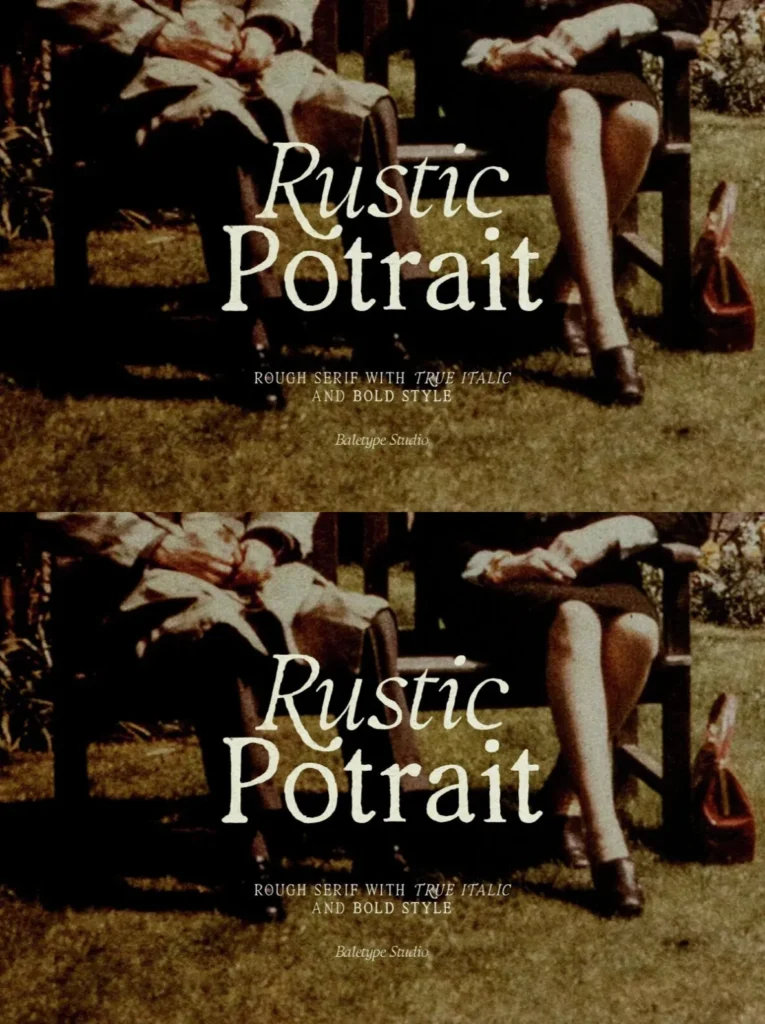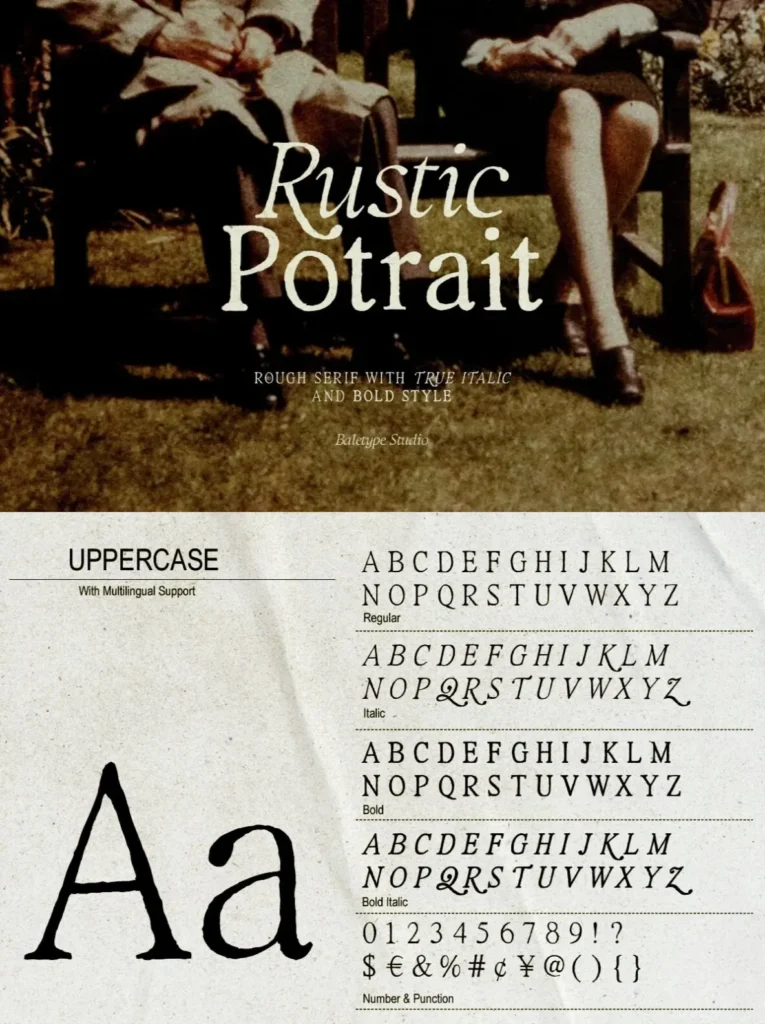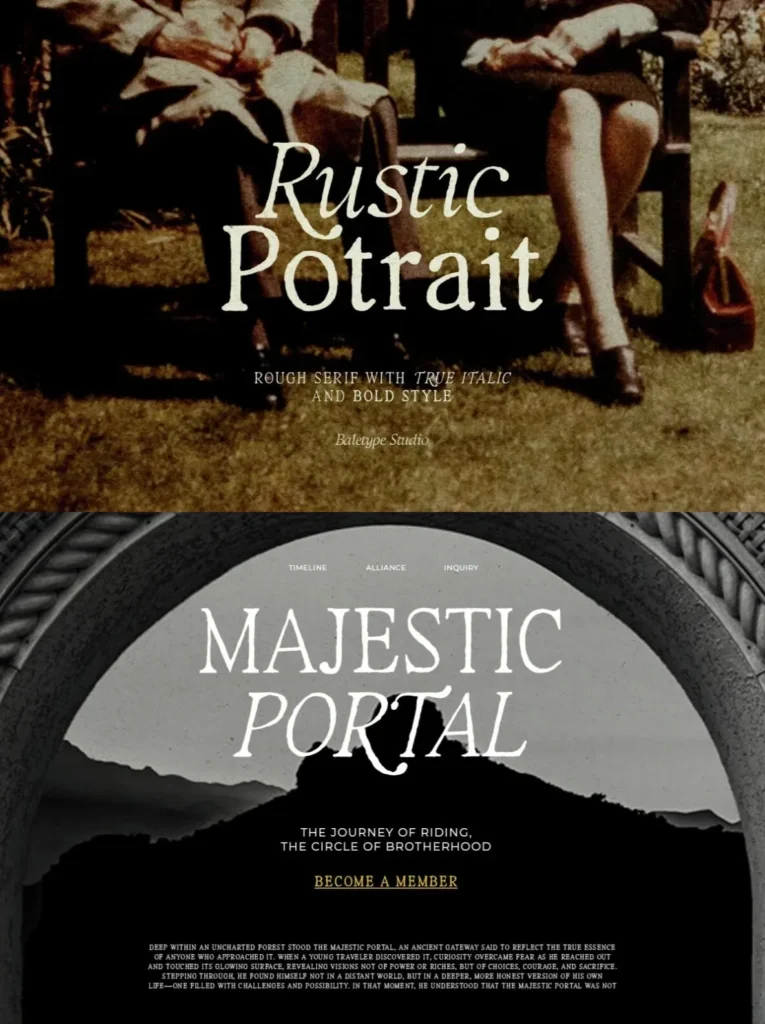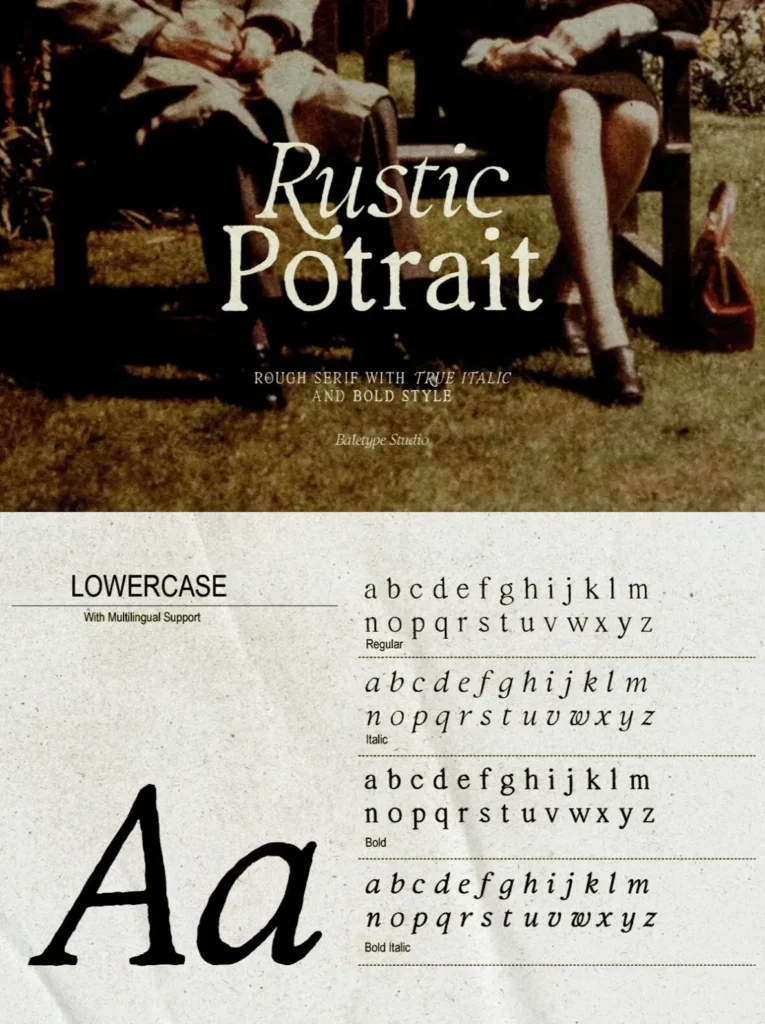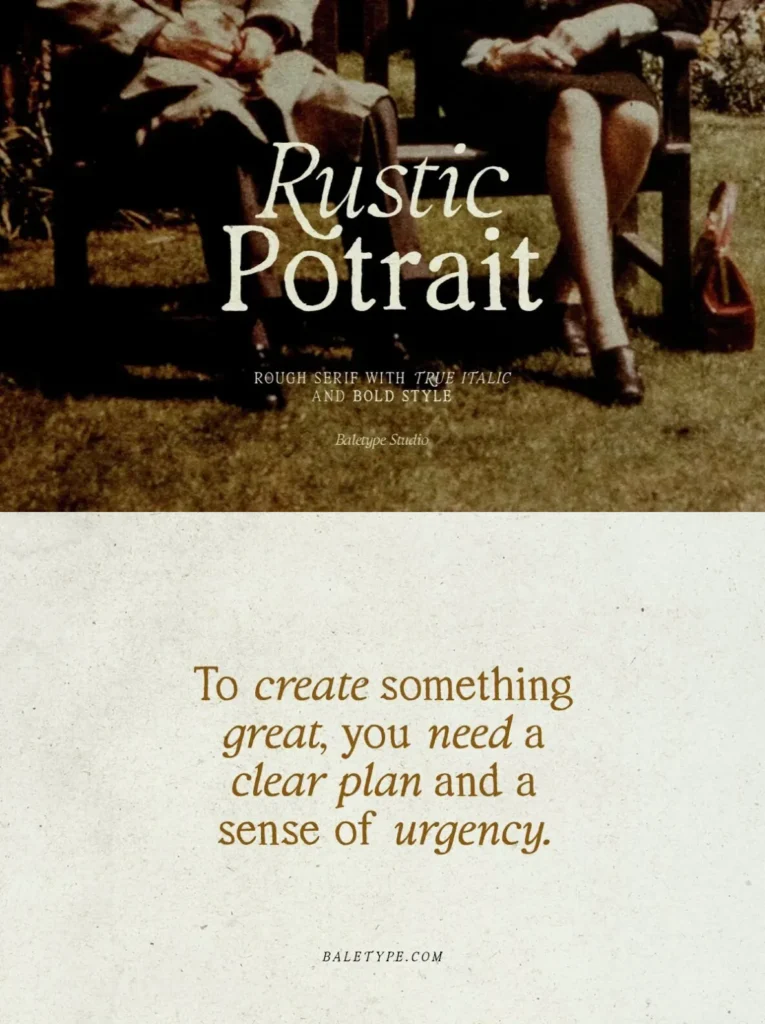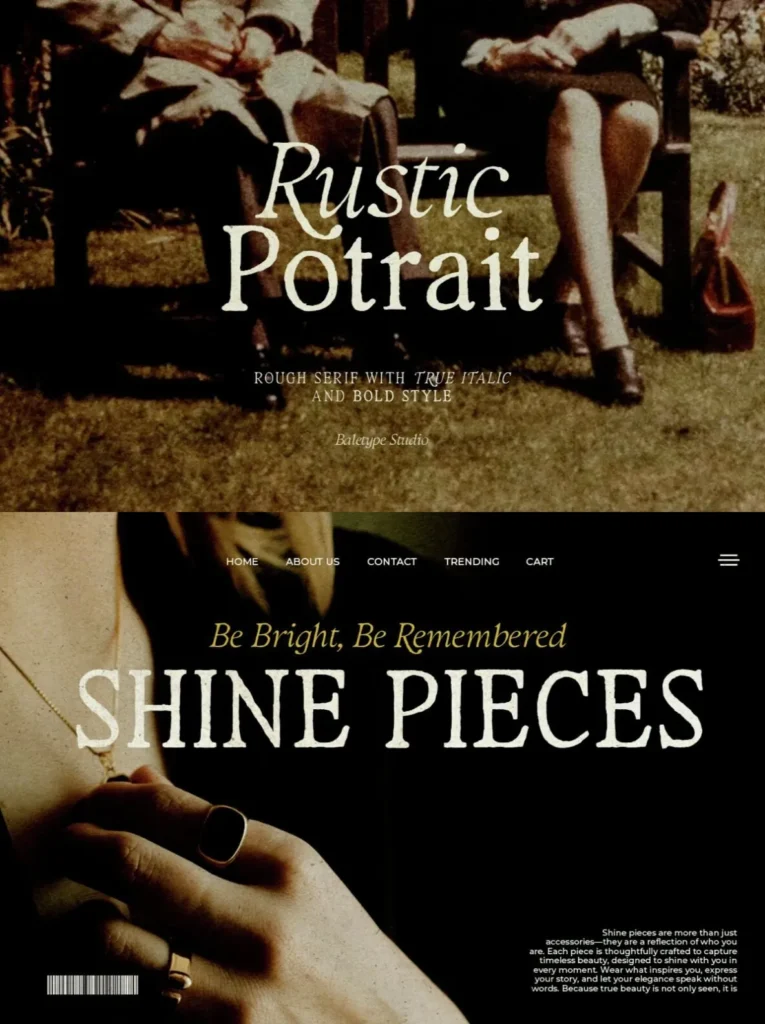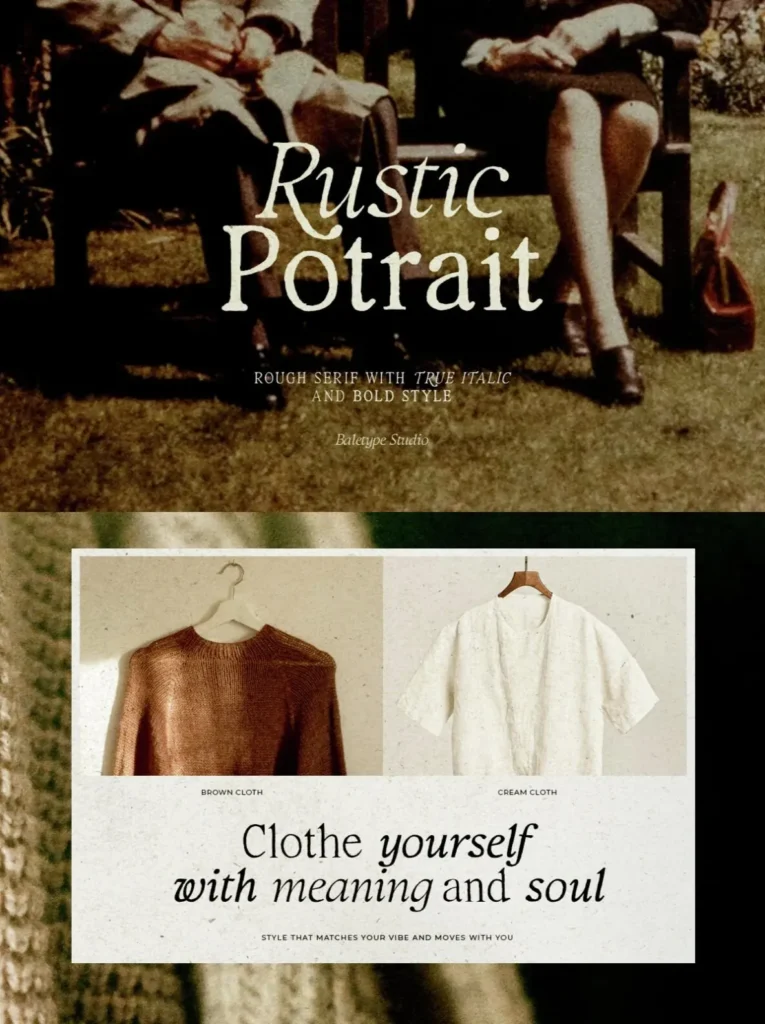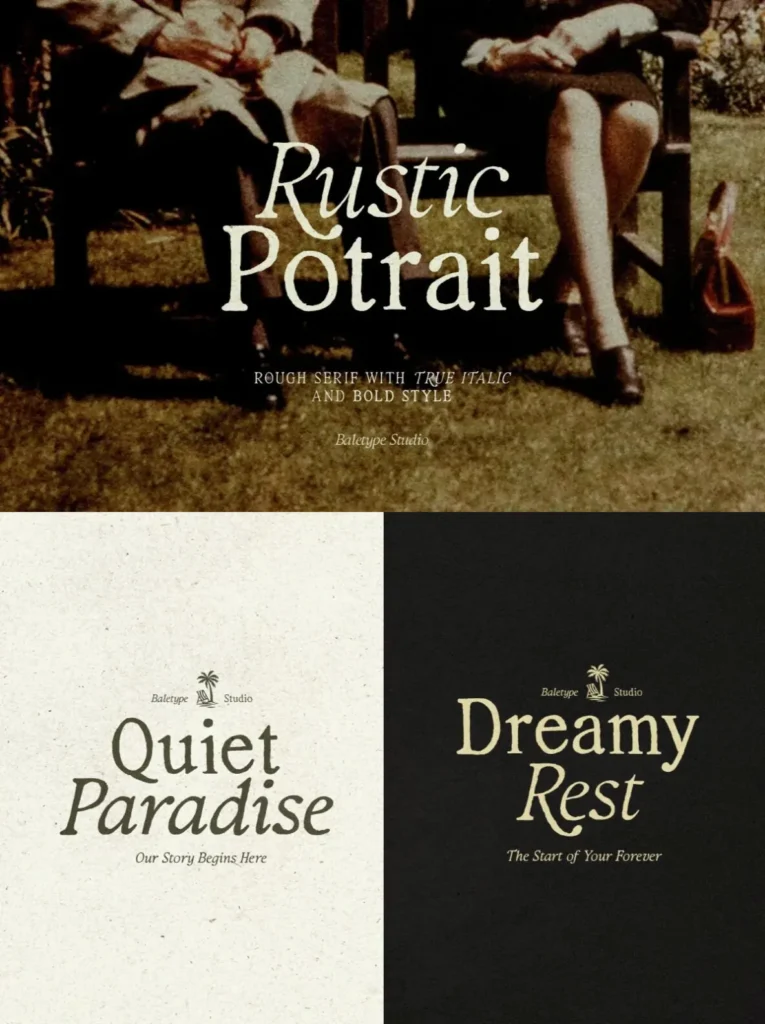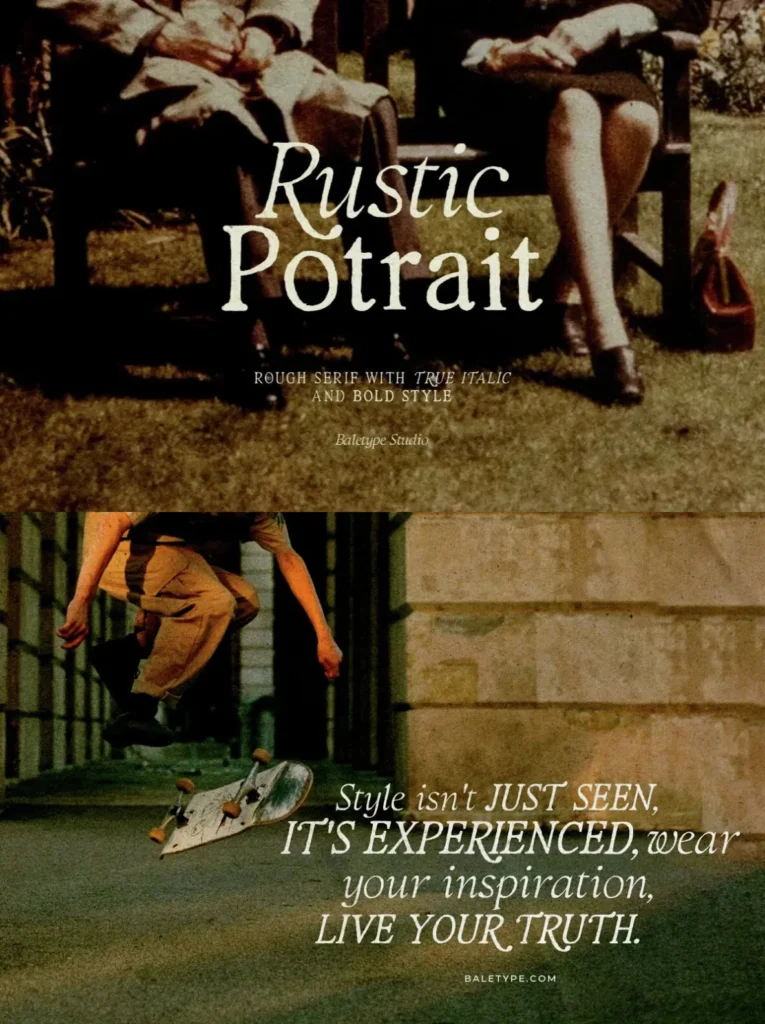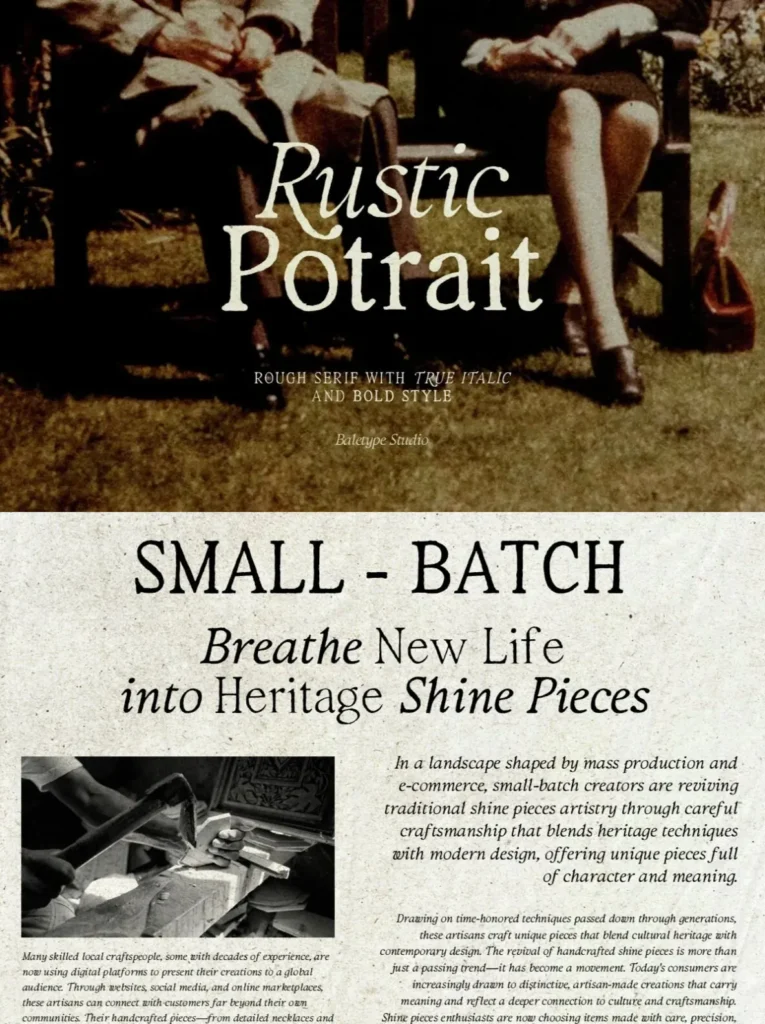
Rustic Portrait Font
Rustic Portrait — Warmth in Every Serif
Rustic Portrait is a hand-lettered serif font family with a natural, textured, and slightly rough appearance. It captures the charm of handcrafted typography while giving digital designs a warm, authentic voice. Its organic and artisanal character suits work that needs personality without losing readability.
The family includes Regular, Italic, Bold, and Bold Italic styles, giving you practical flexibility across branding, packaging, editorial layouts, and presentations. With its versatile character and multilingual support, Rustic Portrait is a strong choice for designs that need to feel distinctive, approachable, and carefully made.